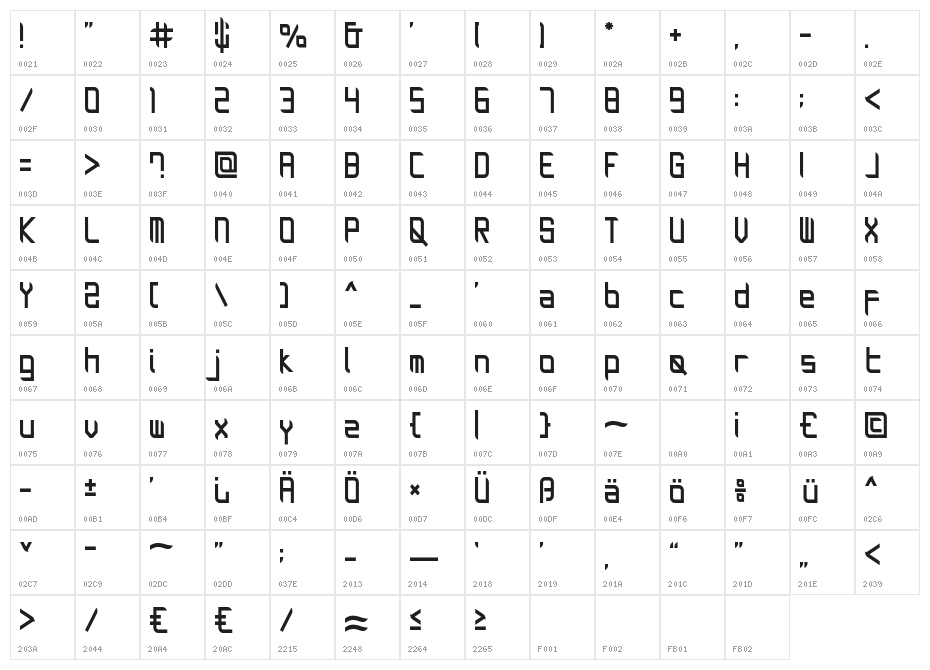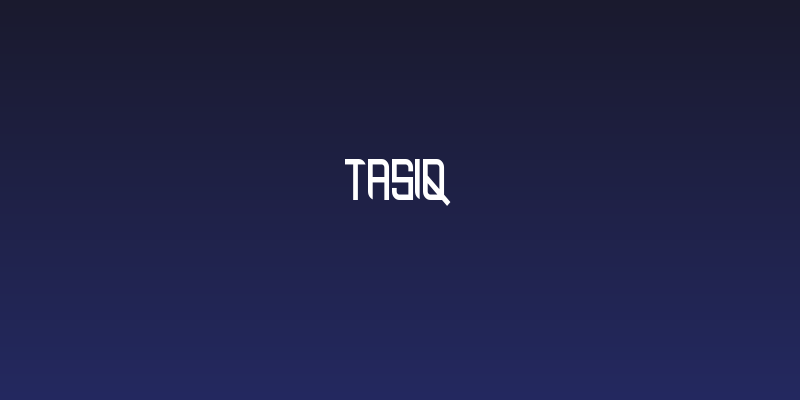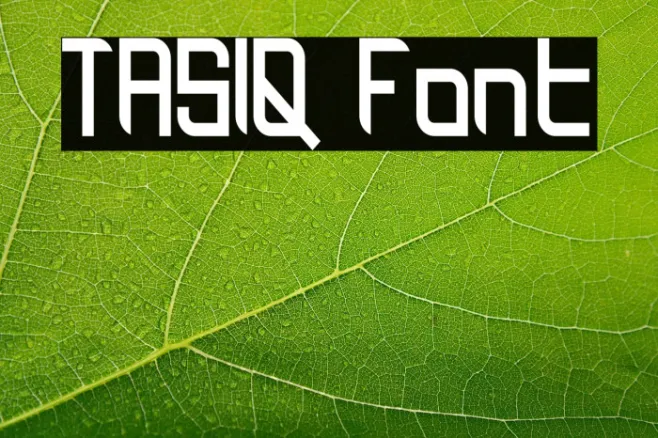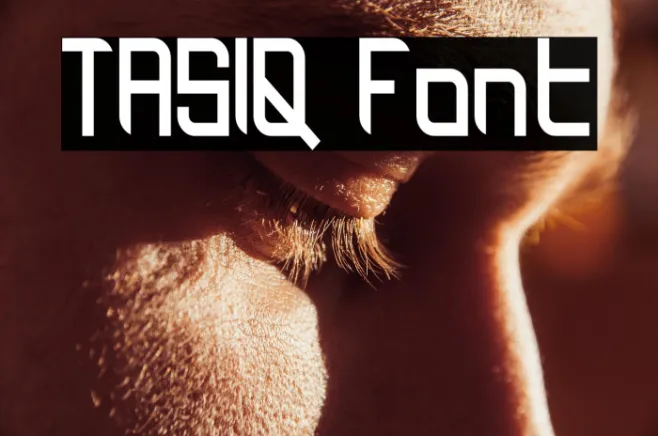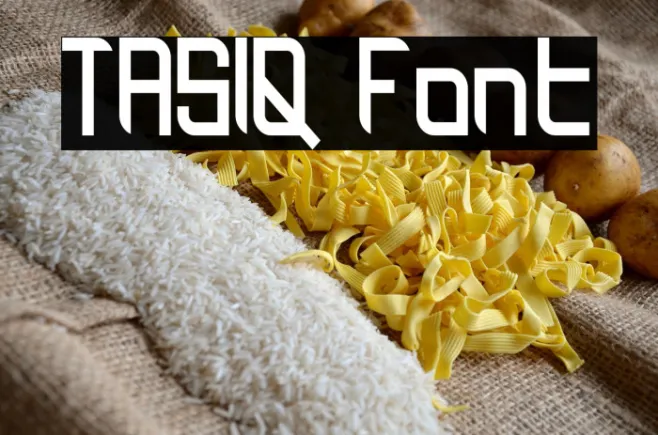
TASIQ Font
TASIQ Description
This font features a geometric and futuristic design with a distinct angular style. The characters are constructed with straight lines and sharp corners, giving it a modern and tech-inspired appearance. The uppercase and lowercase letters maintain a consistent height, contributing to a uniform look. The numerals and special characters follow the same design principles, ensuring a cohesive visual experience. The overall aesthetic is clean and minimalistic, making it suitable for contemporary design projects.
| Proposed Projects | Ideal for tech branding, sci-fi themed designs, video game interfaces, and modern advertising. |